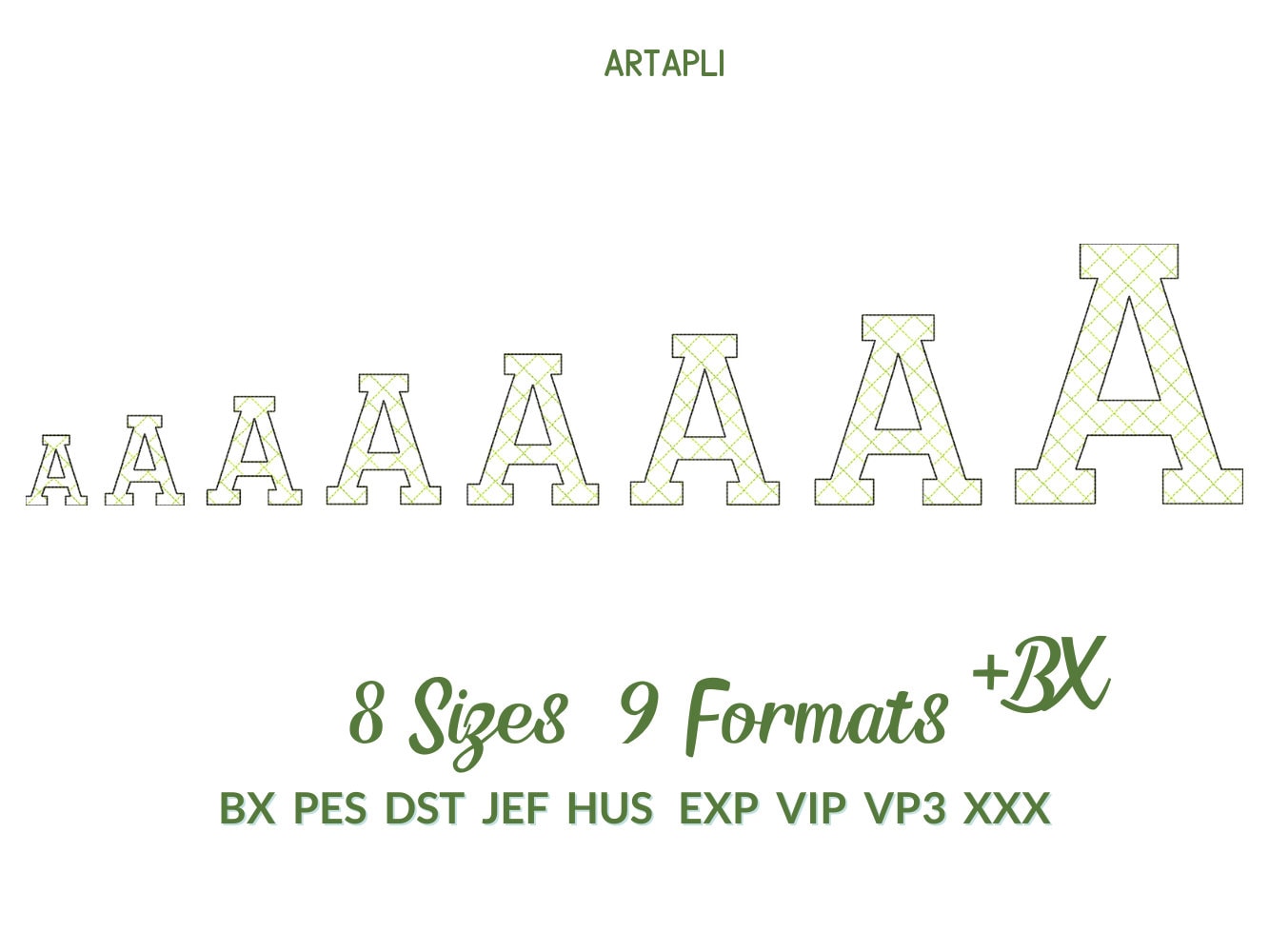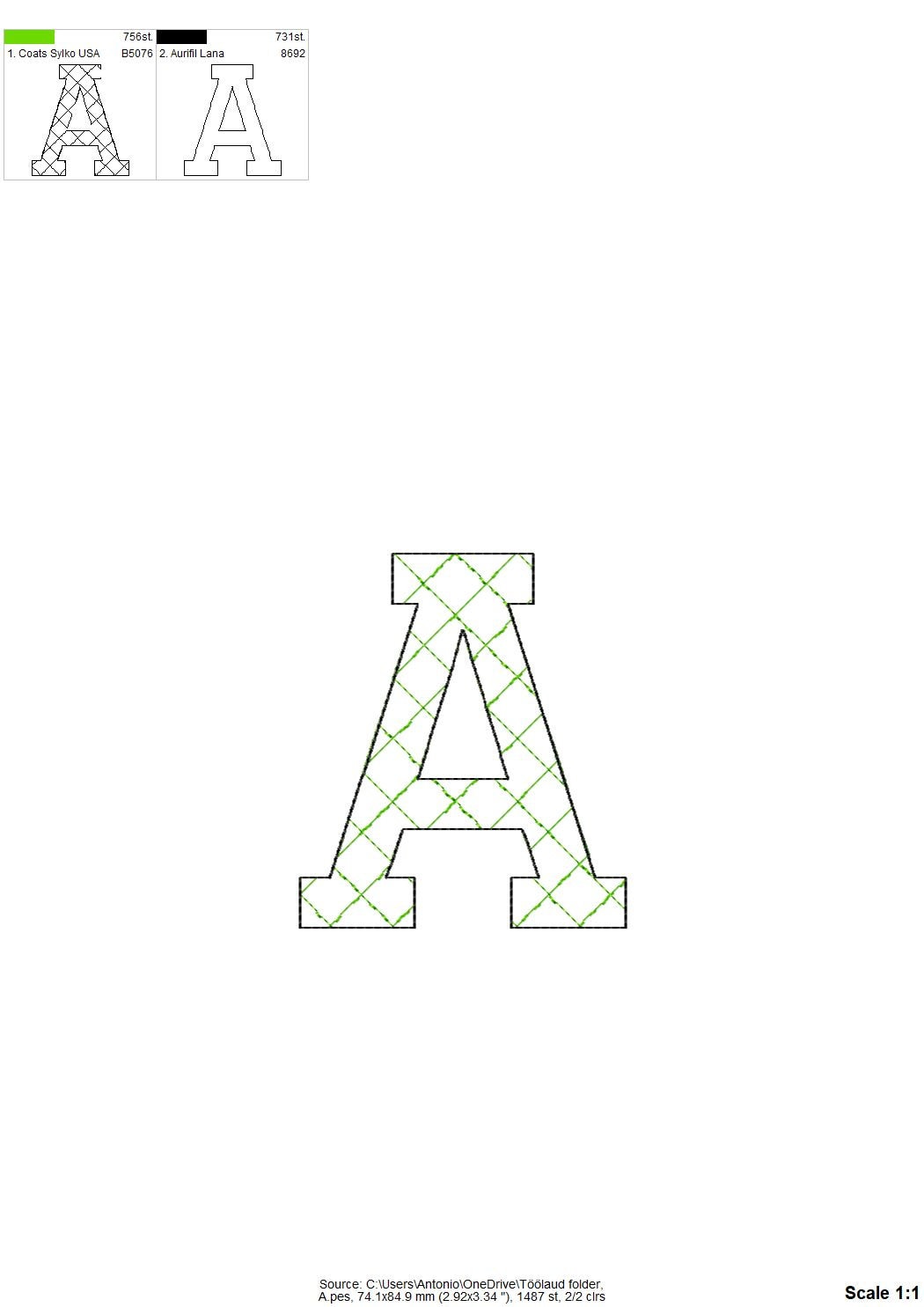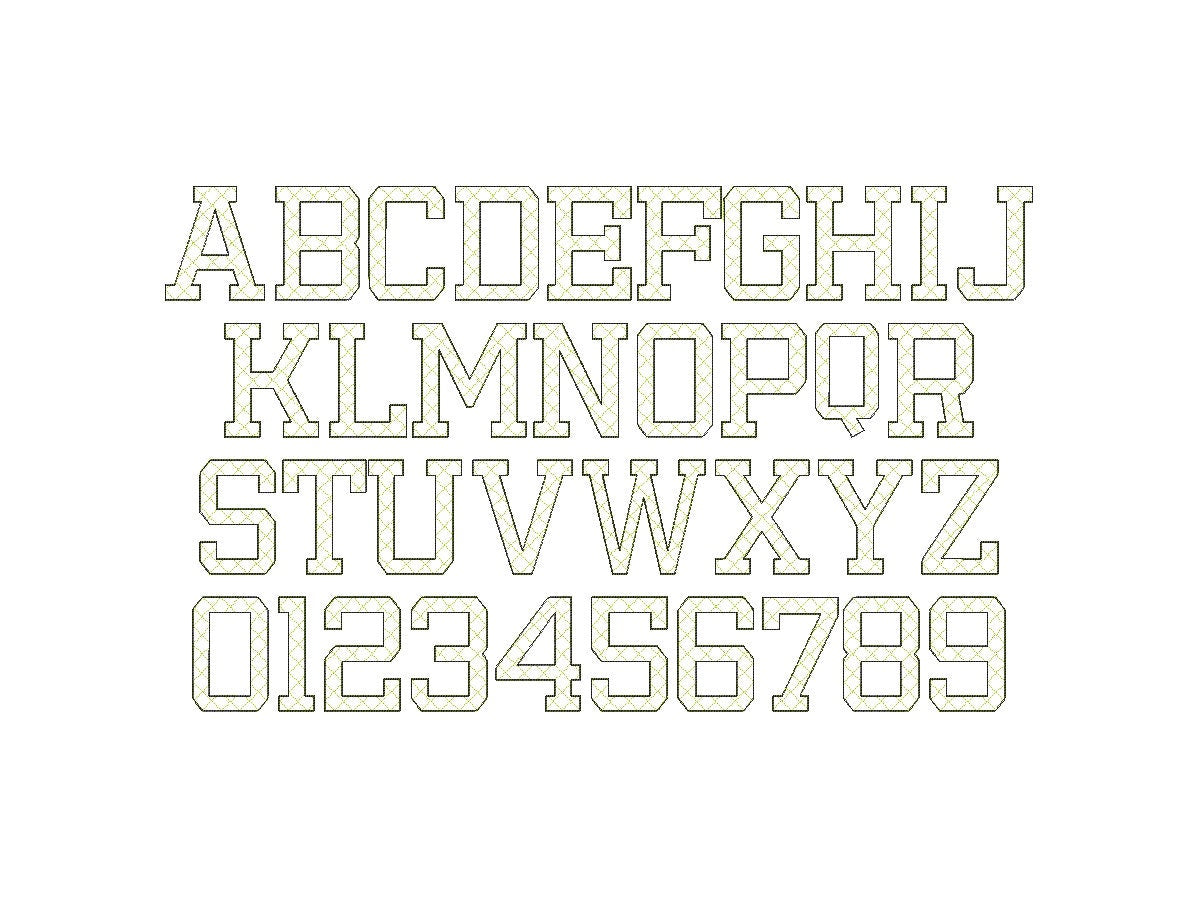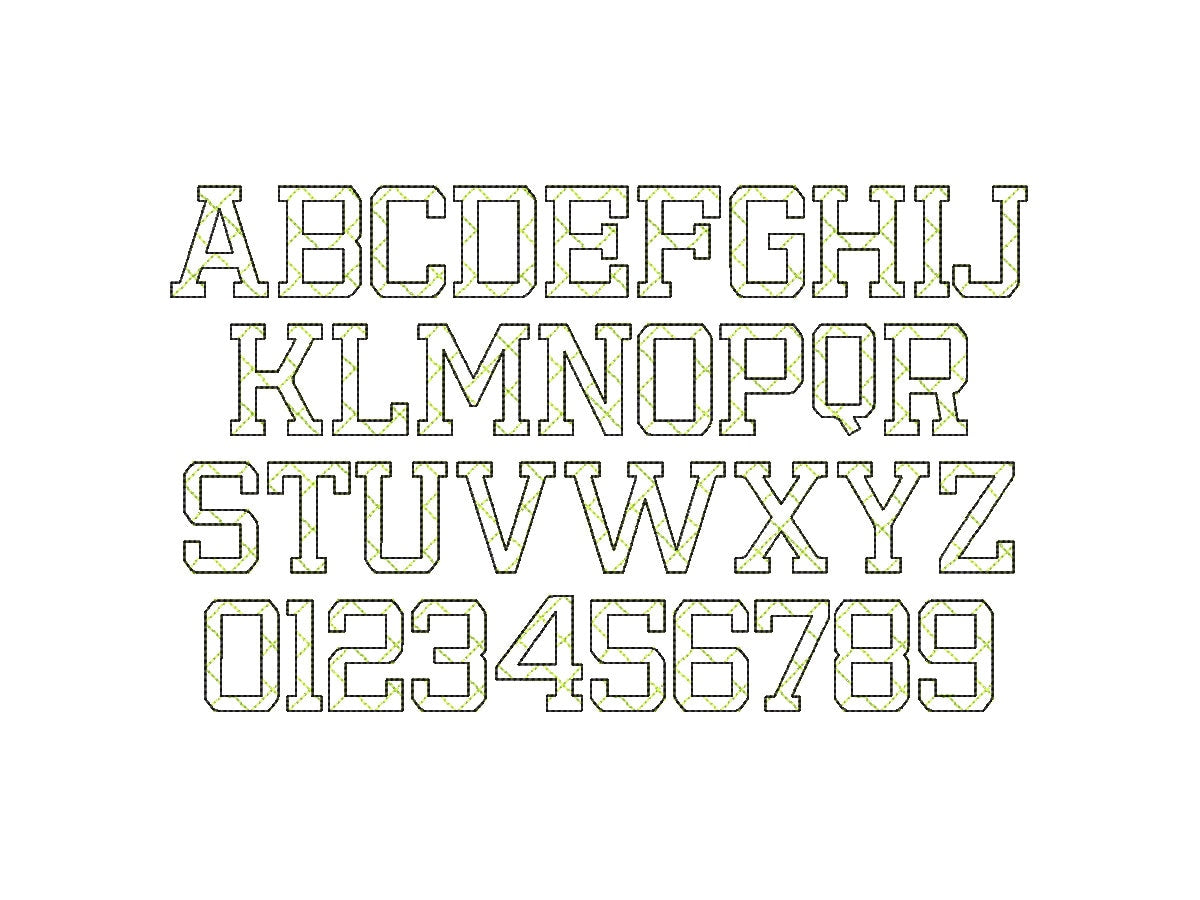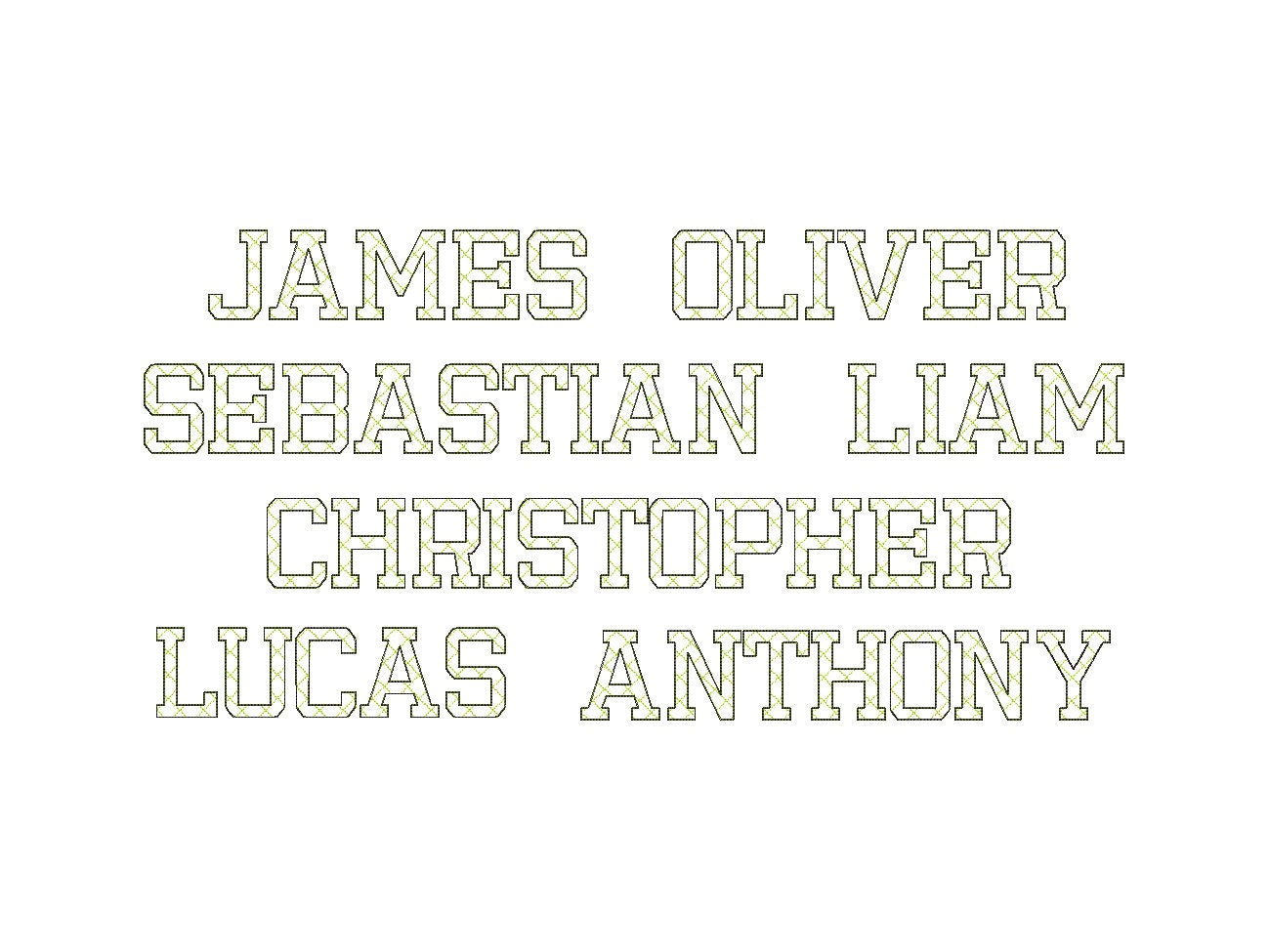
Quick Light Stitch Quilted Font
Or click to open the linkA quick, light stitch block font with a quilted pattern. Great for boys' names, monograms, quilts and pillows.
The letters come in eight sizes: 1.4, 1.8, 2.1, 2.5, 3, 3.3, 3.7 and 5.1 inches. Quilting lines are part of the design and the fabric shows through, so the letters stitch out fast. Includes uppercase letters A to Z and numbers 0 to 9.
- Light stitch quilted block font
- Uppercase A to Z, numbers 0 to 9